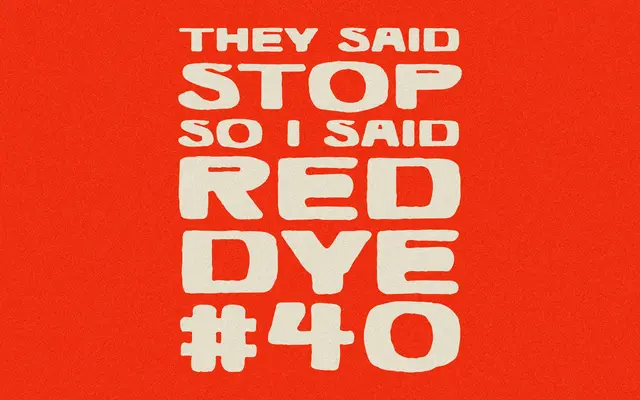
Red Dye 40
A single-weight display face built for punchy, high-confidence headline work with deliberately imperfect, heavy letterforms.
Thick strokes and intentional roughness give this display face a tactile, over-confident quality that suits poster work, packaging and logotypes. It ships as a single Regular weight with 206 glyphs covering extensive Western European Latin including Icelandic and Welsh. A flat-rate commercial licence with no seat limits or traffic caps makes it approachable for small studio use.
A thick, imperfect display face with deliberate irregularity and strong presence, suited to poster and headline use rather than text setting.